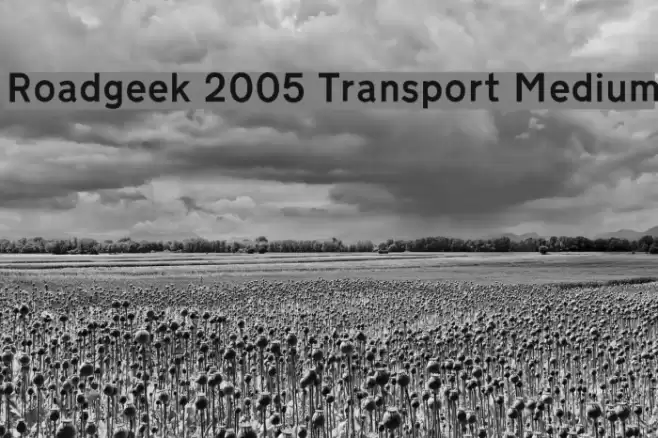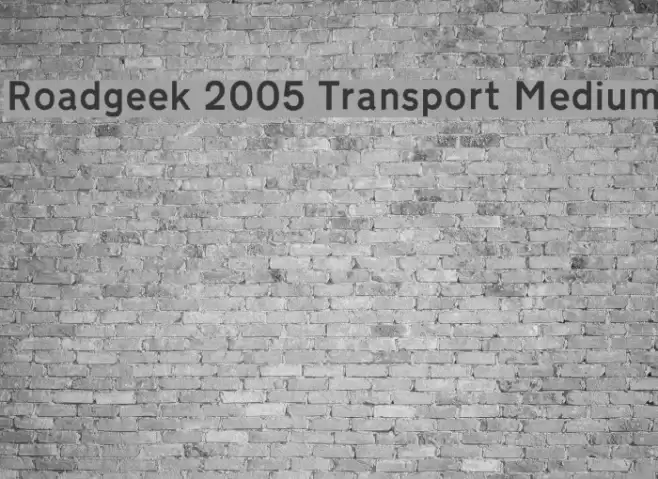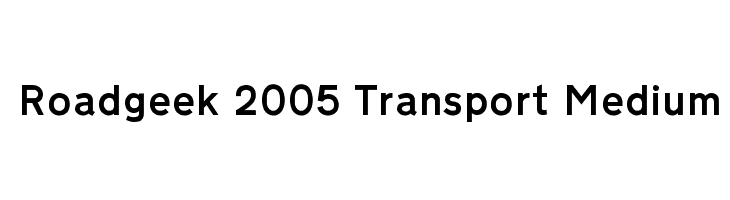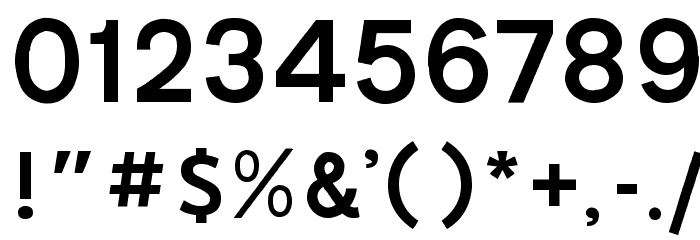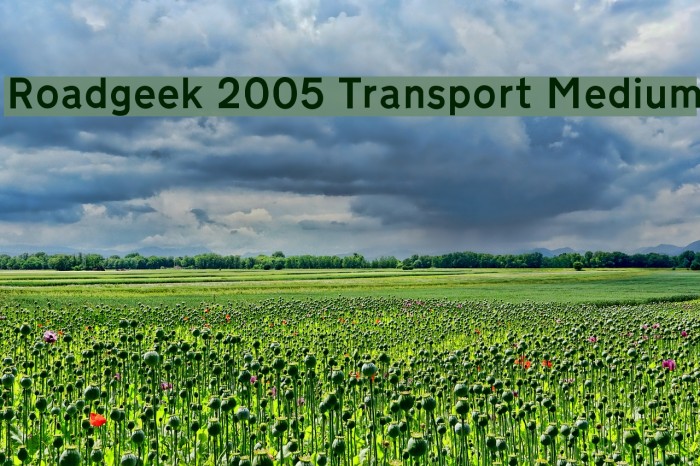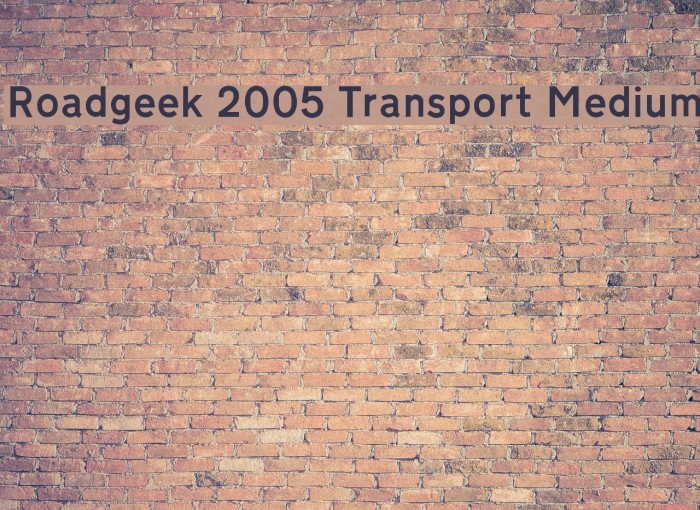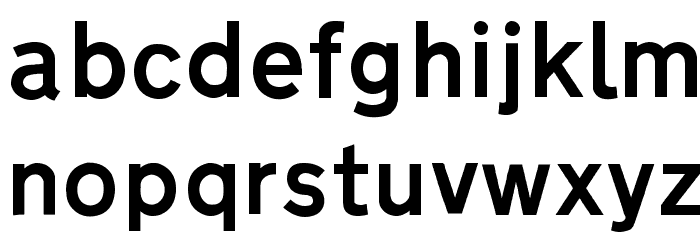
Roadgeek 2005 Transport Medium Font
Roadgeek 2005 Transport Medium Description
This font features a clean and modern sans-serif design, characterized by its straightforward and highly legible letterforms. The strokes are uniform in thickness, providing a balanced and consistent appearance across all characters. The uppercase letters are bold and assertive, while the lowercase letters maintain a friendly and approachable feel. The numerals are clear and distinct, making them easy to read at a glance. Special characters are well-integrated, maintaining the overall aesthetic of simplicity and clarity. This font is versatile, suitable for a wide range of applications where readability is paramount.
A modern, clean sans-serif font with uniform strokes and high legibility from Uncategorized fonts.
- Proposed Projects: Ideal for road signage, transportation systems, user interfaces, and any project requiring clear readability.